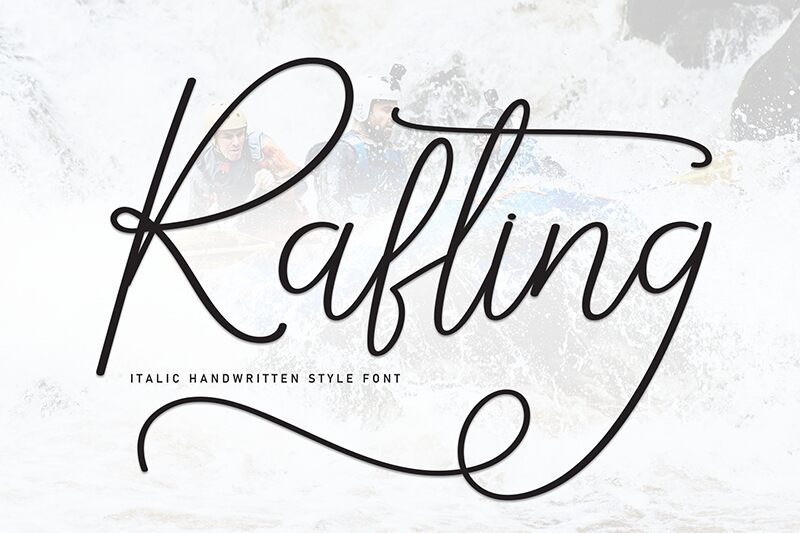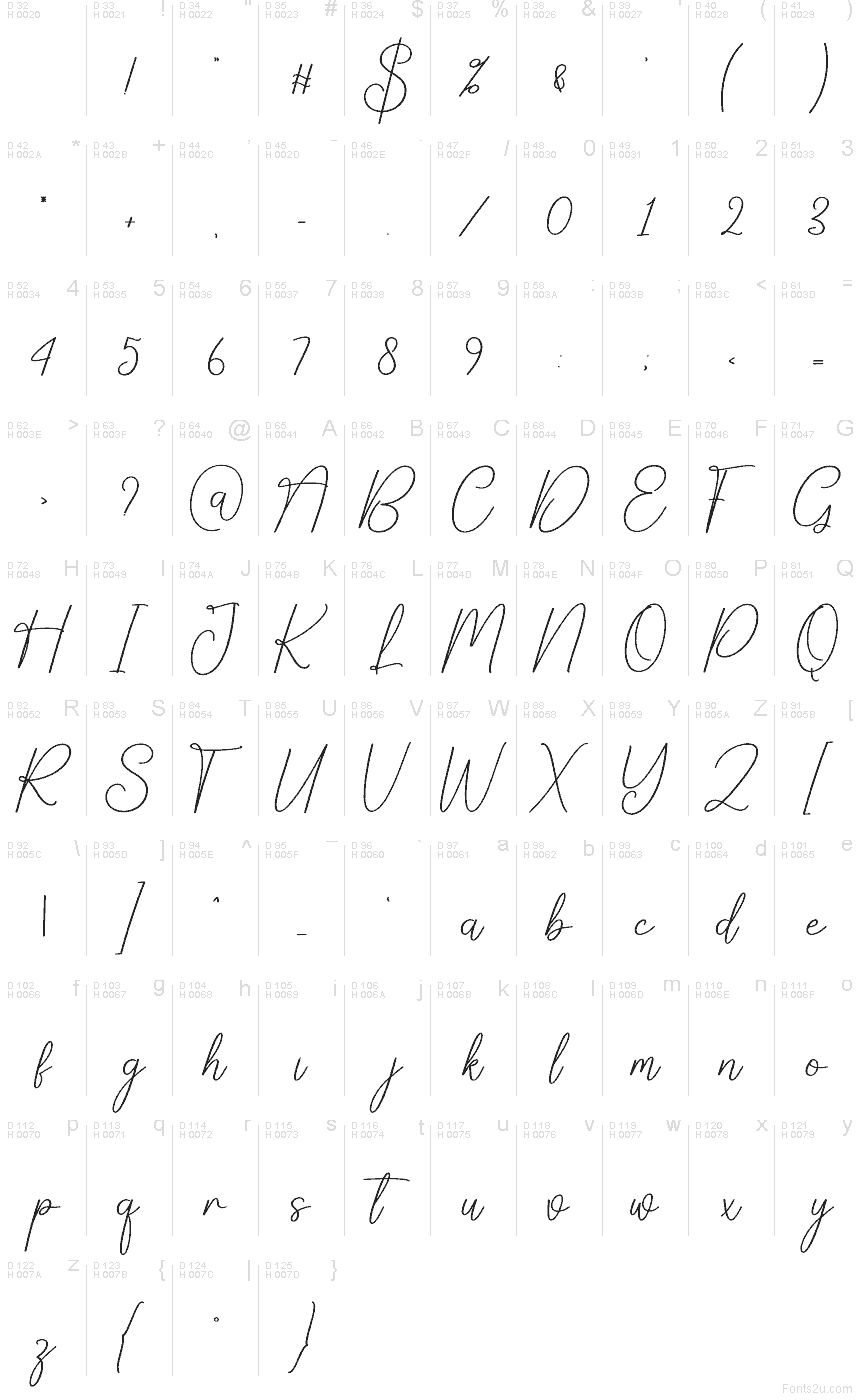
Rafting
Rafting font by Scratchones is a free handwritten script typeface that captures the feel of quick, confident pen strokes on smooth paper. Its long, looping connections and airy spacing give every word a breezy, personal touch, as if it were jotted by a stylish friend rather than set on a screen. The thin, inky lines keep it light and refined, so it reads as modern calligraphy rather than fussy cursive.
Using Rafting, this free font shines on wedding invitations, save-the-dates, personal branding, handmade product labels, Instagram quotes, and chic blog headers. The flowing rhythm brings warmth to logos and signatures, especially when you set it large to show off the graceful curves. For a clean, balanced look, pair Rafting with a simple sans serif for body text and let this script handle names, headings, and key phrases.